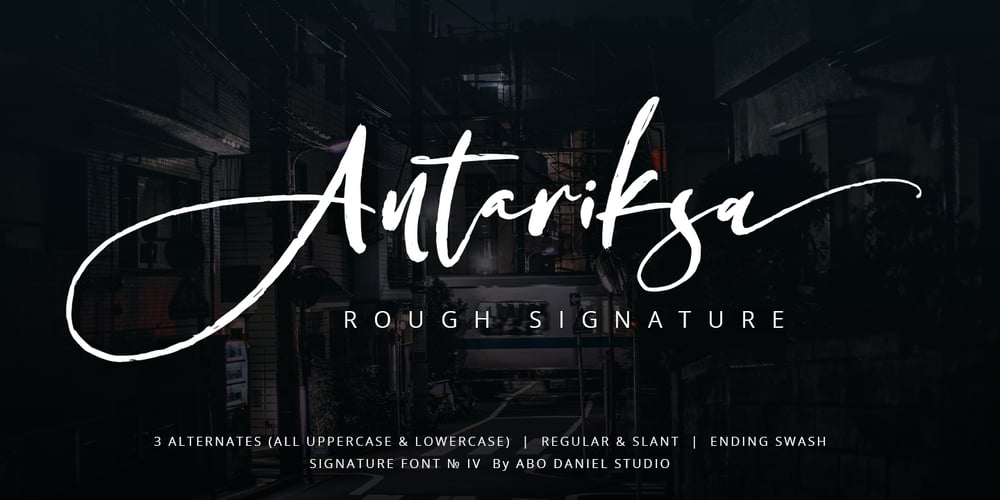
Antariksa Font Family was designed by Abo Daniel and published by Abo Daniel. Antariksa contains 2 styles and family package options. Antariksa is a very modern and futuristic, according to the meaning of its name which means “outer space” in Indonesian. Antariksa is great for Signature, logos, branding, advertising, titling, quotes, and more.I’ve created 2 style alternates, so this product has 3 different styles. You can combine the alternates as you like to make for different combinations. I am also including a Slant version, to give even more possibility.The ending swashes make this product so complete and perfect. The are very easy to access: you only need to add underscore 2x after the lowercase character. For example ( a _ _ ) it will be “a” with ending swash.So, don’t hesitate to purchase this product. It is fantastic.Regards,Abo Daniel